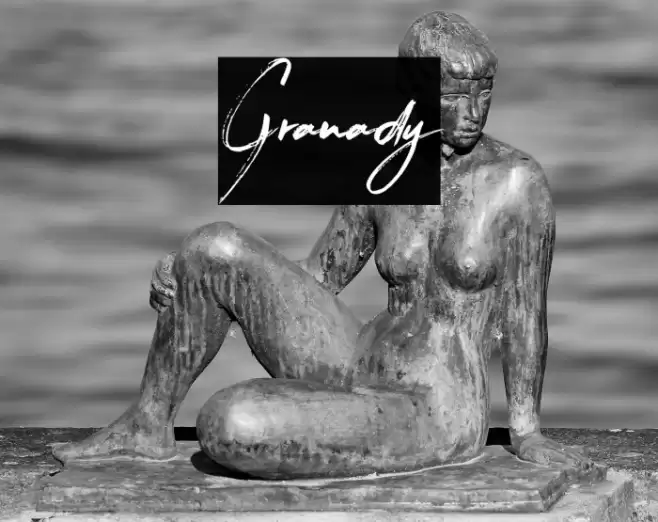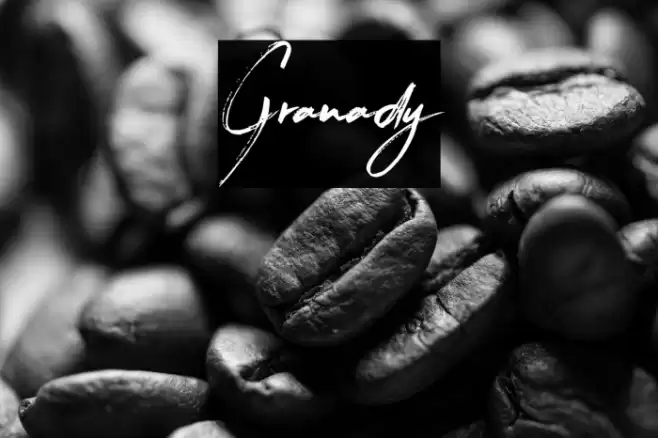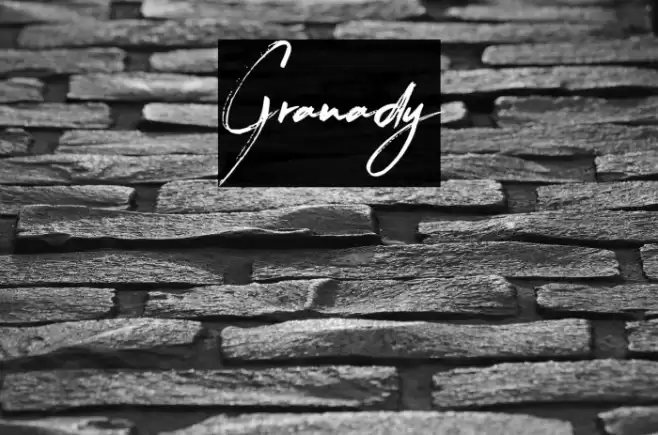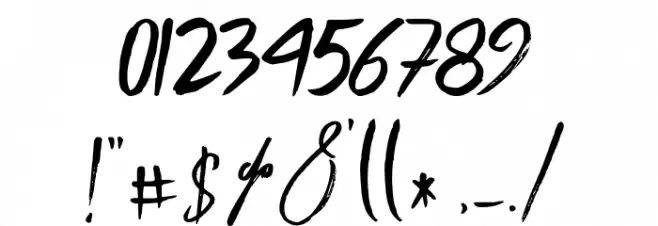
Granady Font
Granady Description
This font features a dynamic and expressive style, characterized by its brush-like strokes and energetic flow. The uppercase letters exhibit a bold and dramatic flair, with varying stroke widths that create a sense of movement and spontaneity. The lowercase letters maintain this fluidity, offering a cohesive and artistic appearance. Numbers are equally bold, with a slightly irregular form that adds to the overall handcrafted feel. Special characters are designed with the same attention to detail, ensuring they blend seamlessly with the rest of the font. This font's unique style makes it ideal for projects that require a personal and artistic touch.
A dynamic, brush-style font with expressive, bold strokes from Regular fonts.
- Proposed Projects: Ideal for branding, posters, album covers, and creative design projects.